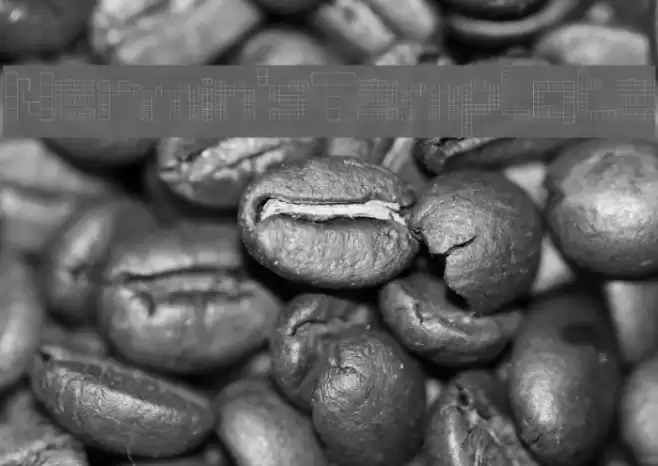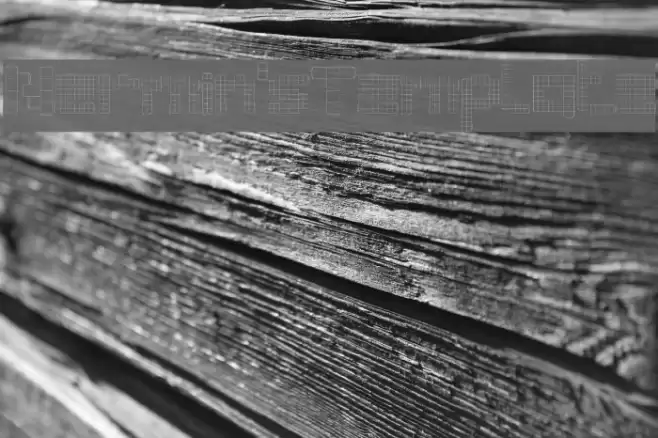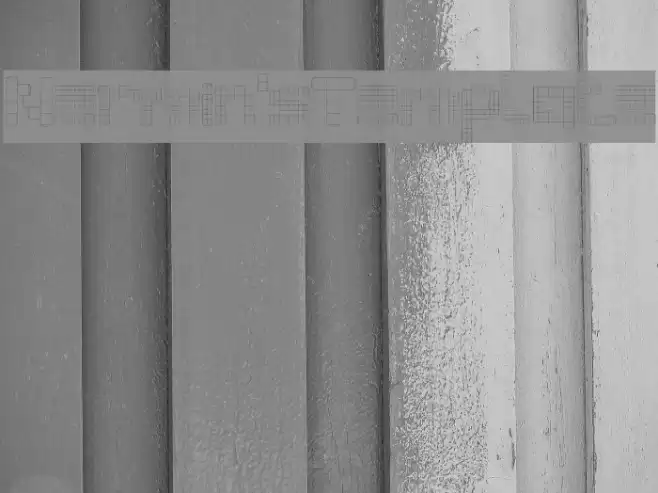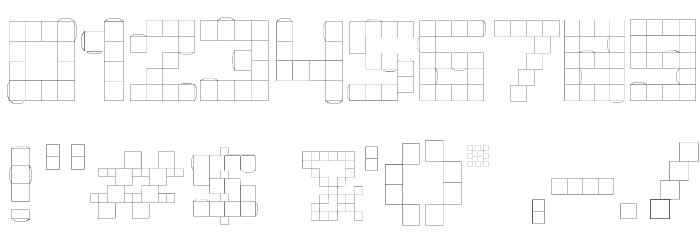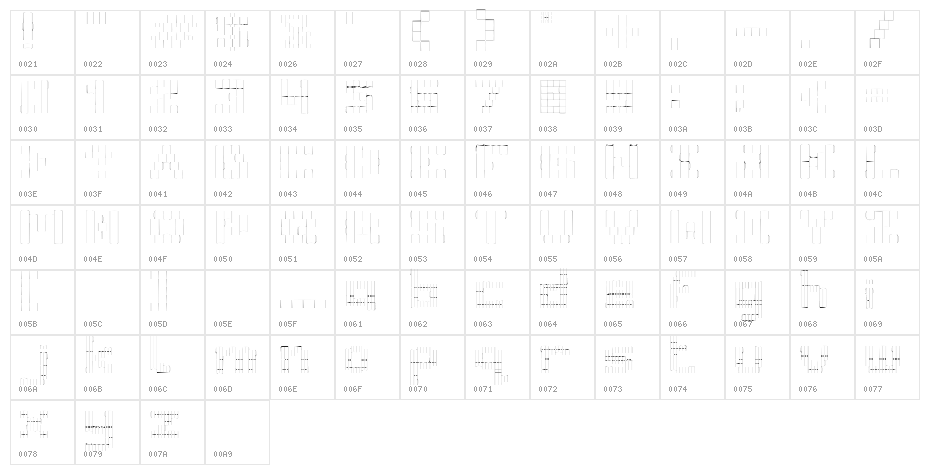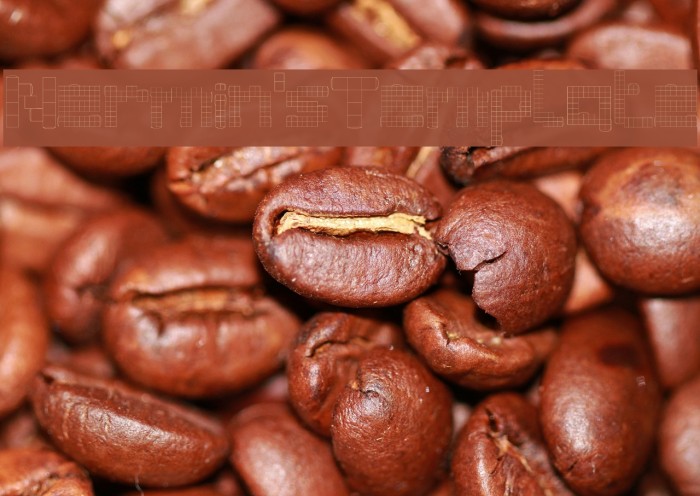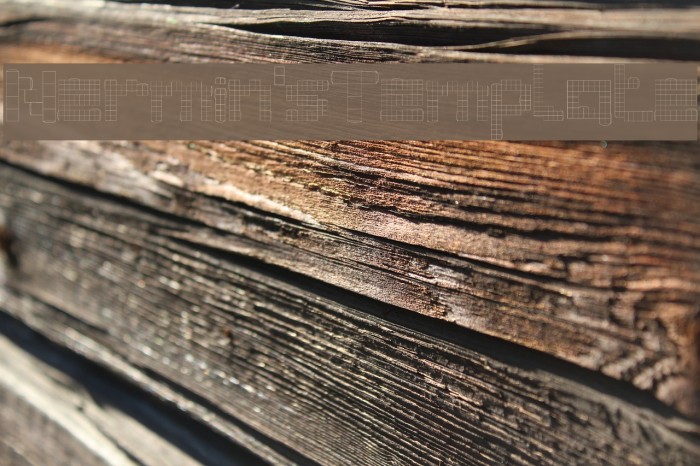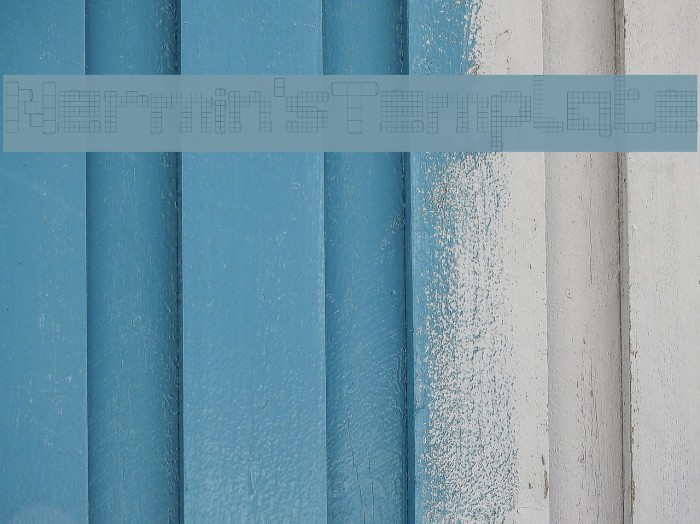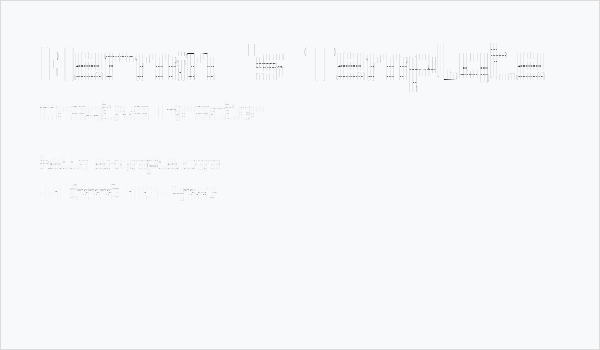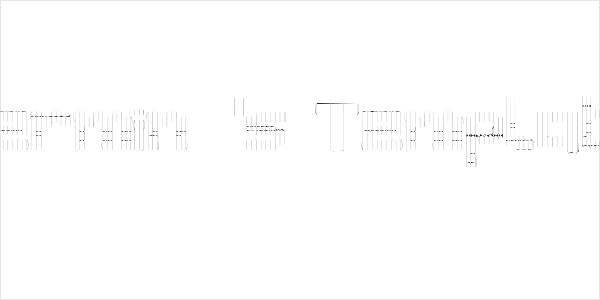
Nermin's Template Font
Nermin's Template Description
This font features a unique design composed of small, grid-like squares forming each character. The geometric structure gives it a pixelated, digital appearance, reminiscent of early computer graphics or video game aesthetics. Each letter and number is constructed with precision, maintaining a consistent grid pattern that creates a cohesive and uniform look. The font's style is both modern and retro, appealing to projects that require a tech-savvy or futuristic vibe. Its distinct blocky form makes it stand out, ensuring high visibility and readability in digital formats.
A pixelated, grid-based font with a digital, retro aesthetic from Futuristic fonts.
- Proposed Projects: Ideal for digital art, video game design, tech-themed posters, and futuristic branding.
- Overall Style: Modern, Retro
- Use Case: Headlines, Logos, Digital displays